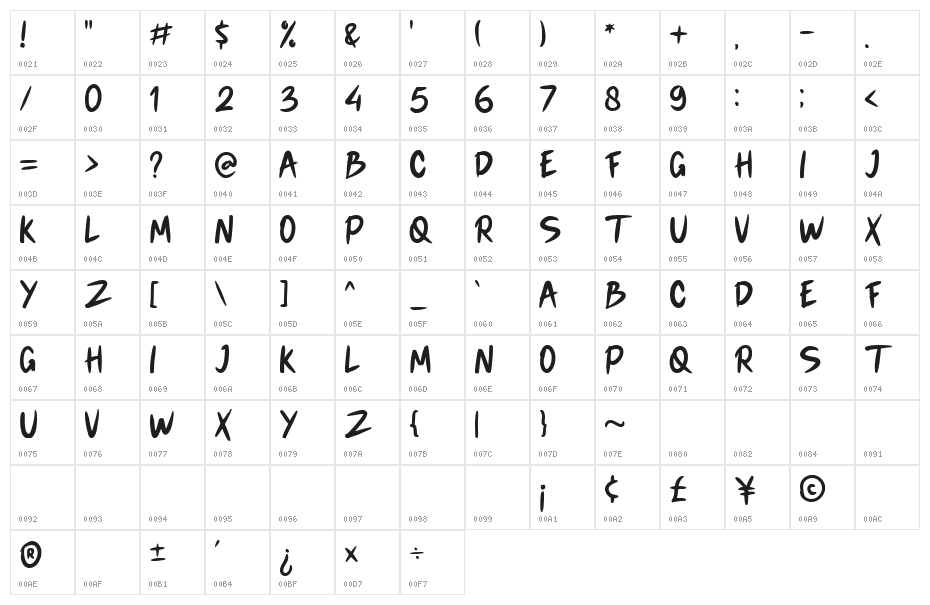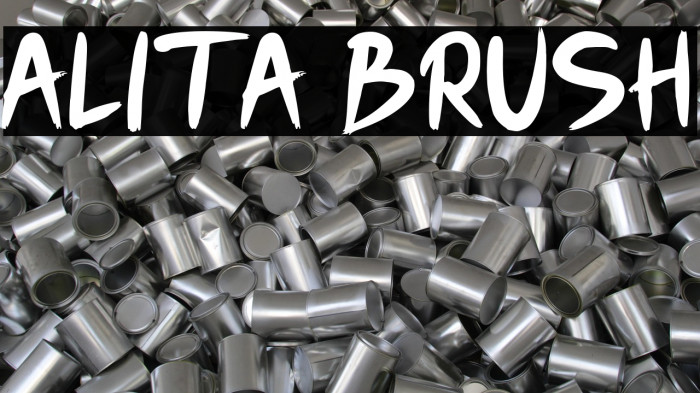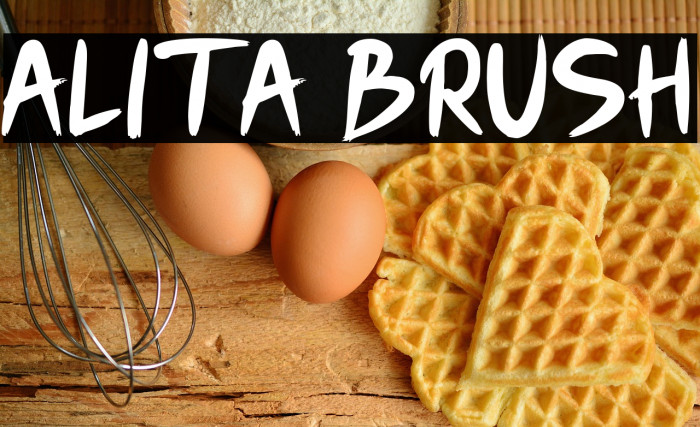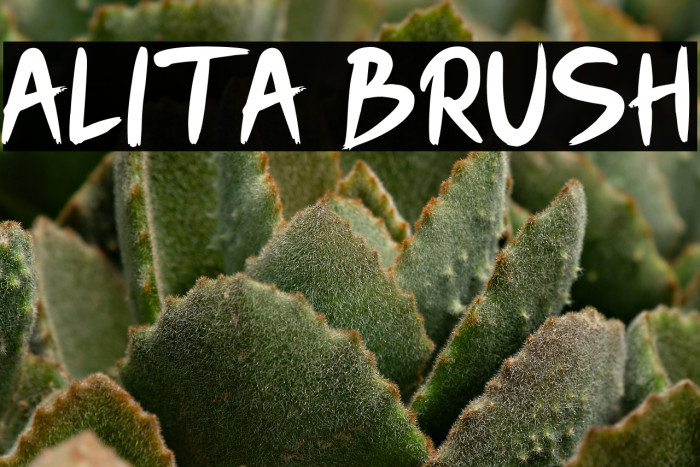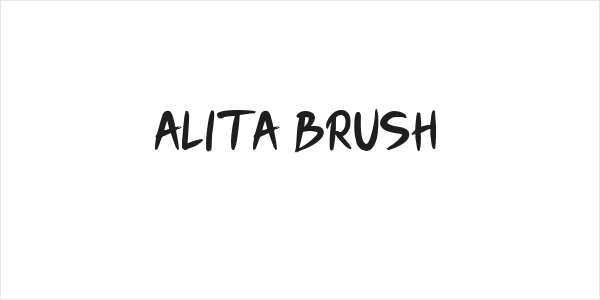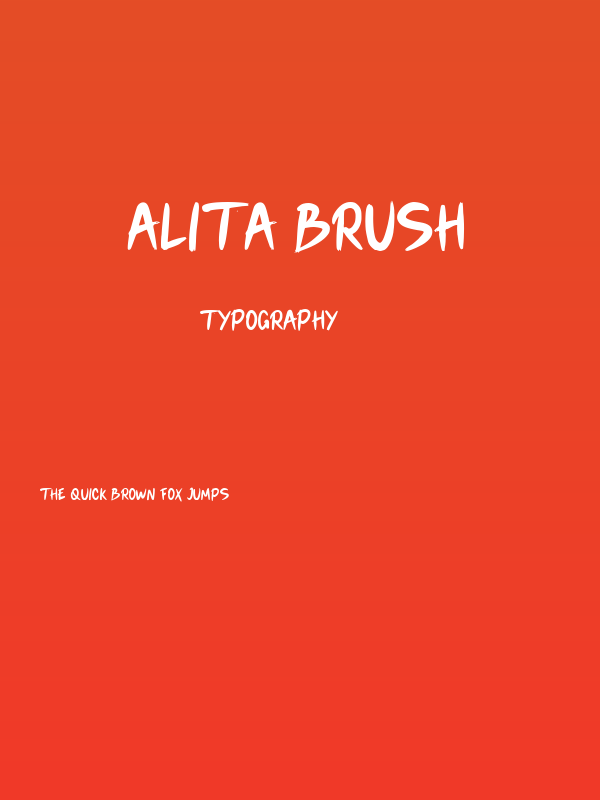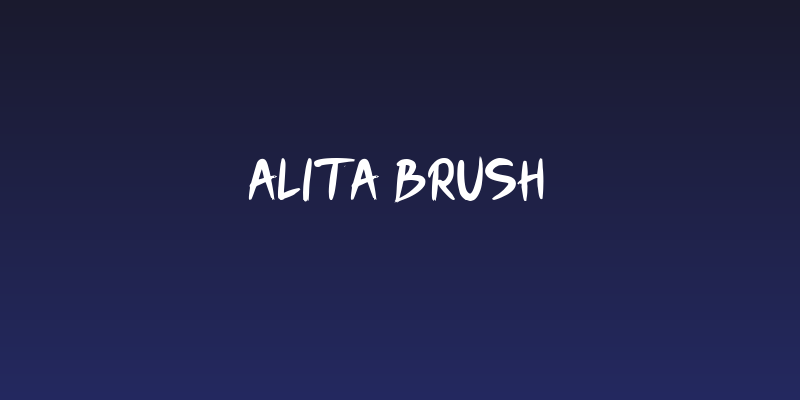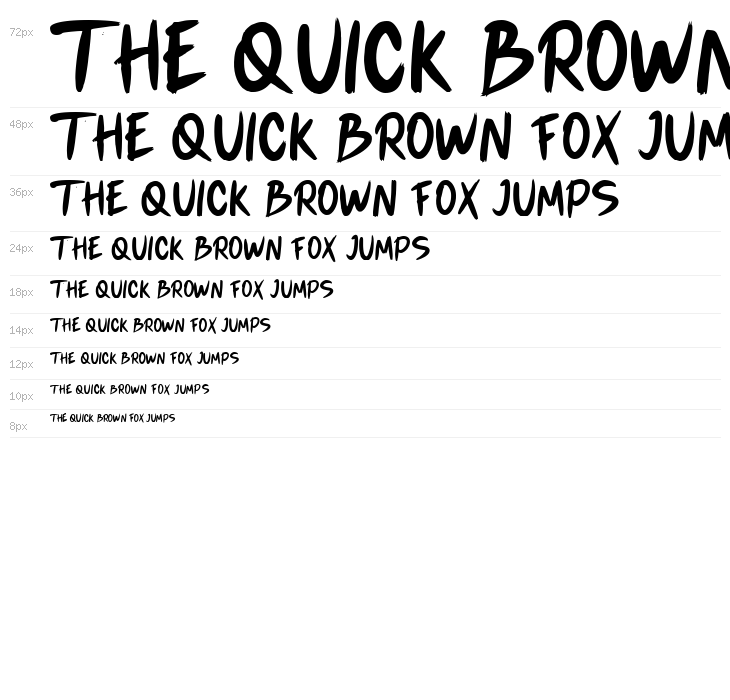
Alita Brush Font
Alita Brush Description
This font exudes a dynamic and energetic feel, characterized by its bold, brush-like strokes that give it a hand-painted appearance. The letters are slightly slanted, adding a sense of movement and fluidity. Each character is distinct, with varying stroke widths that create a lively texture. The uppercase and lowercase letters maintain a consistent style, while the numerals and special characters integrate seamlessly, enhancing the font's versatility. Its artistic flair makes it suitable for projects that require a personal touch or a creative edge.